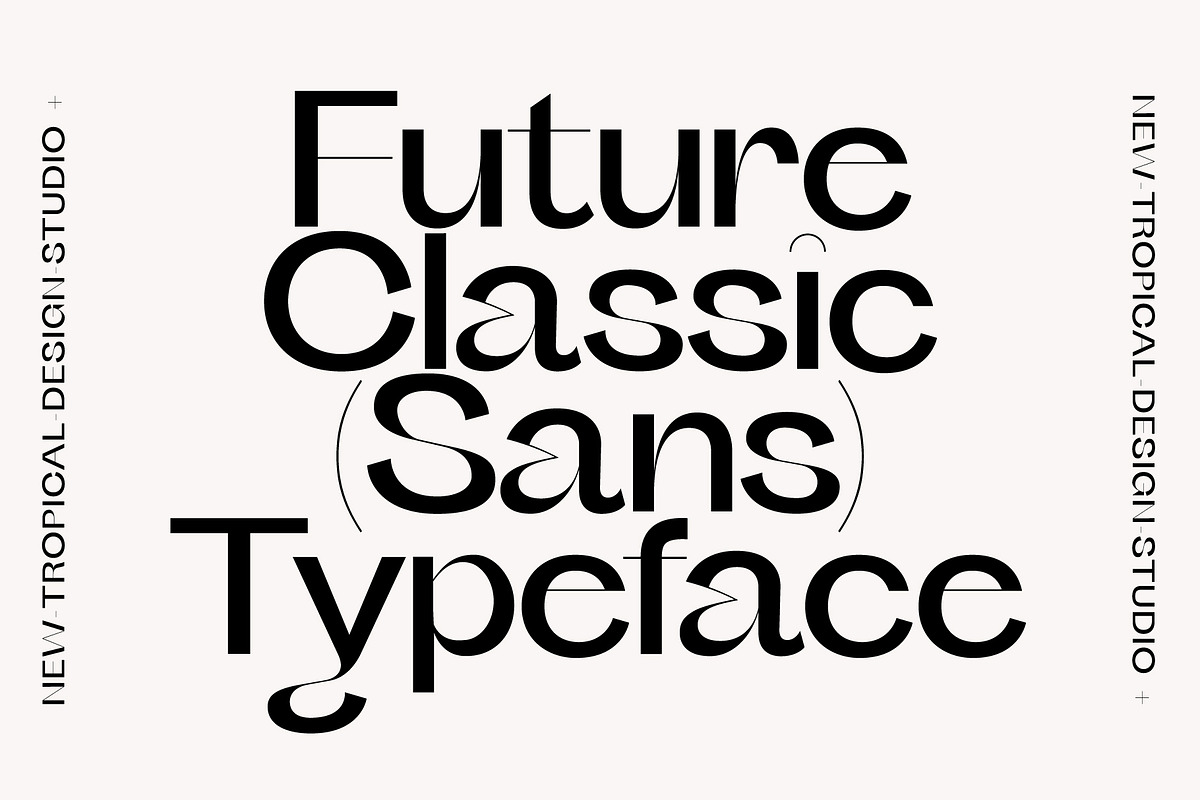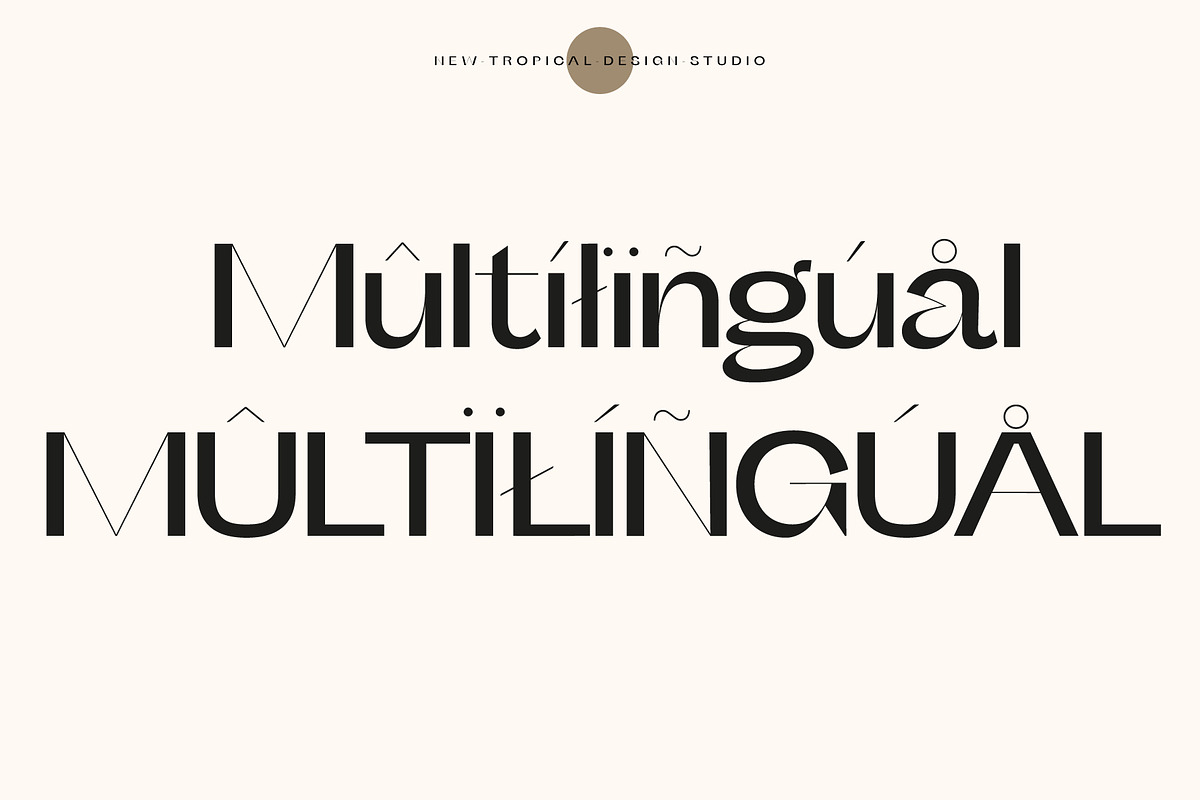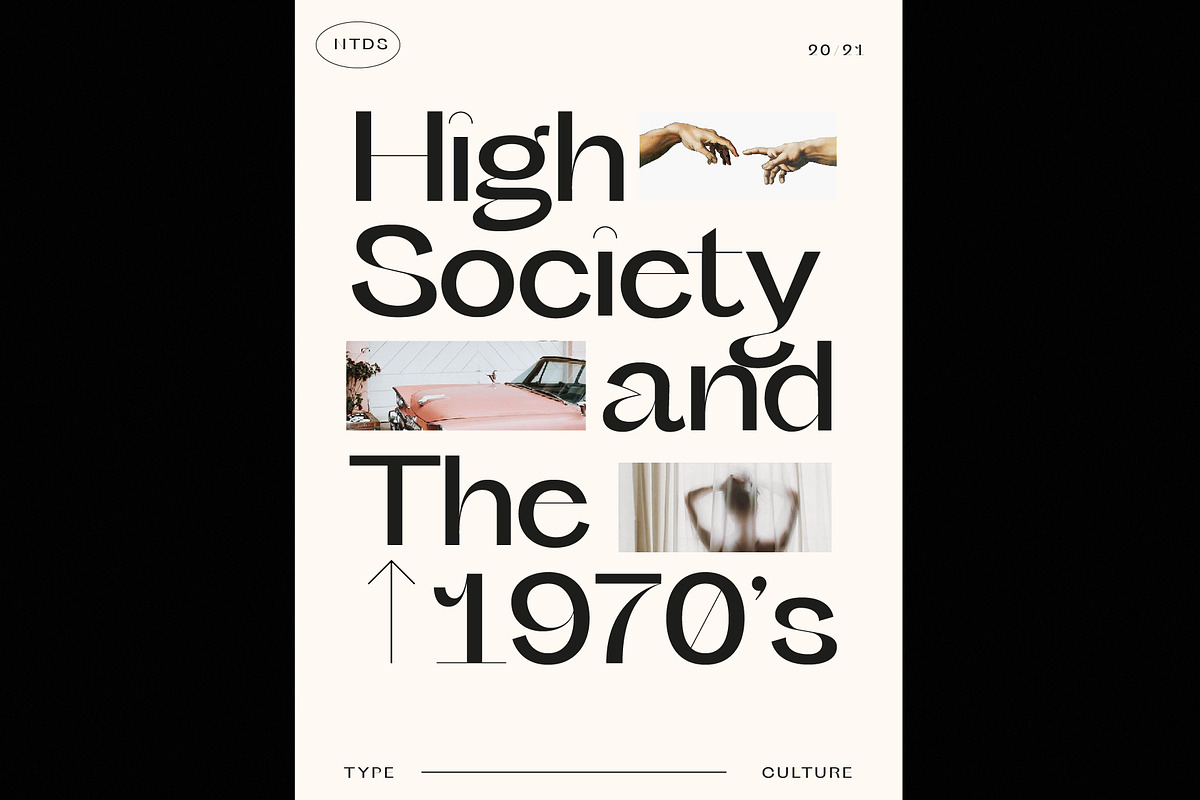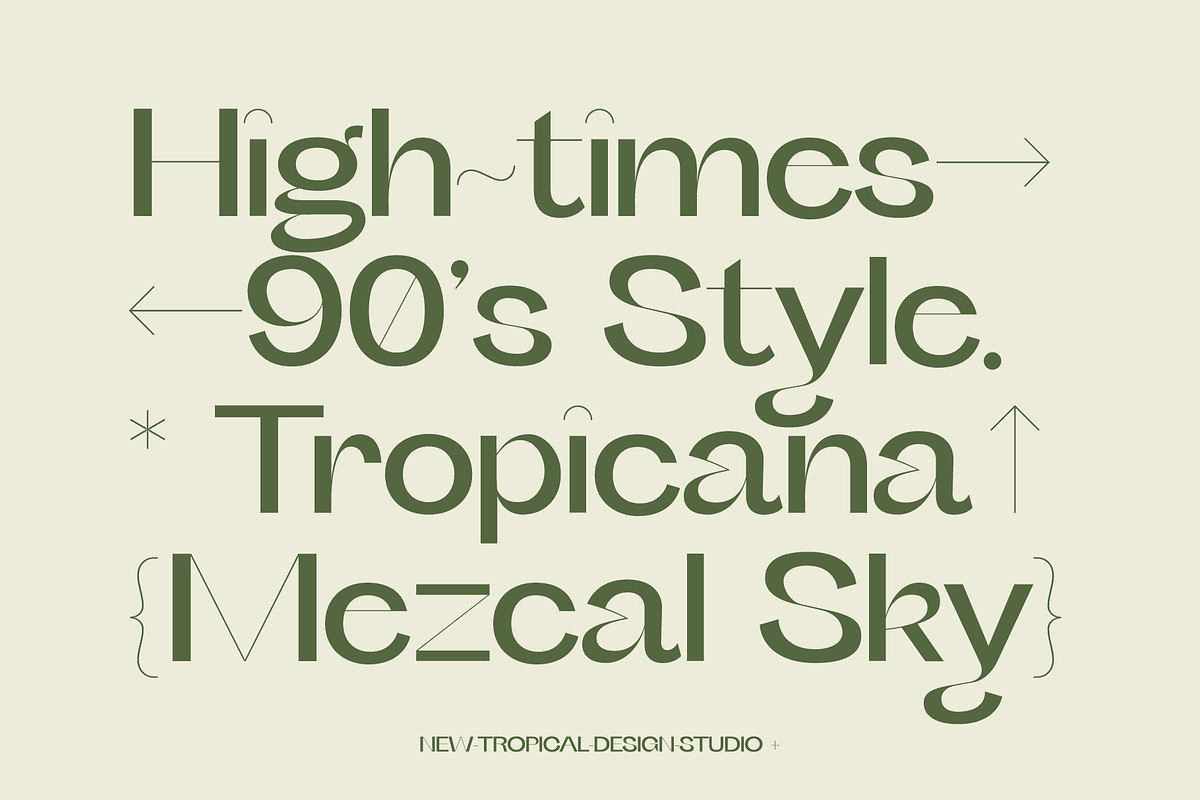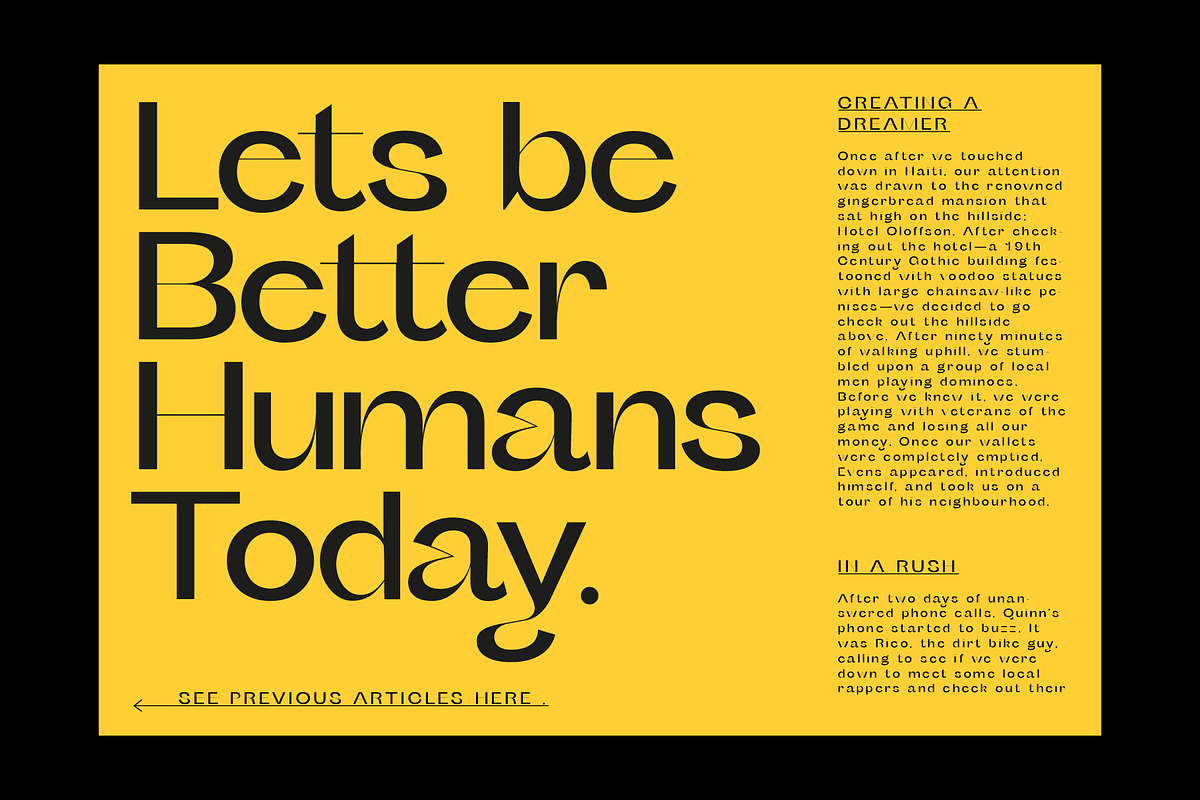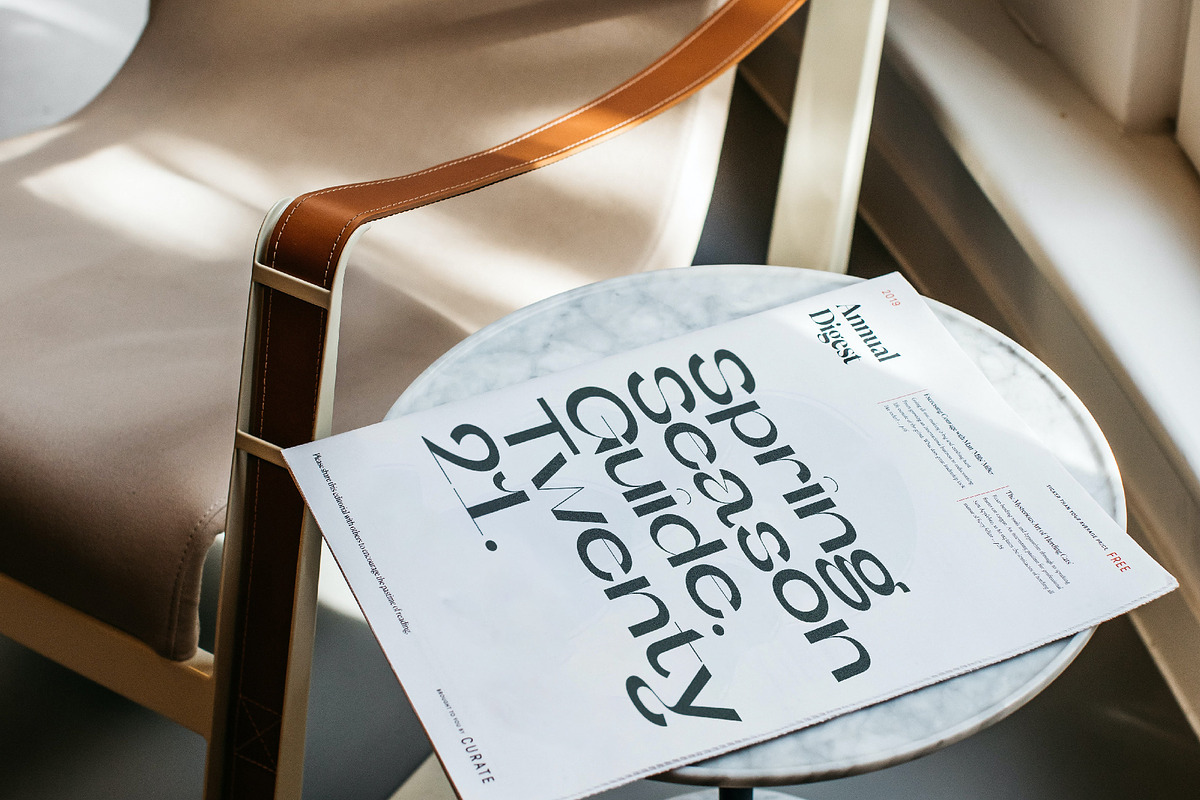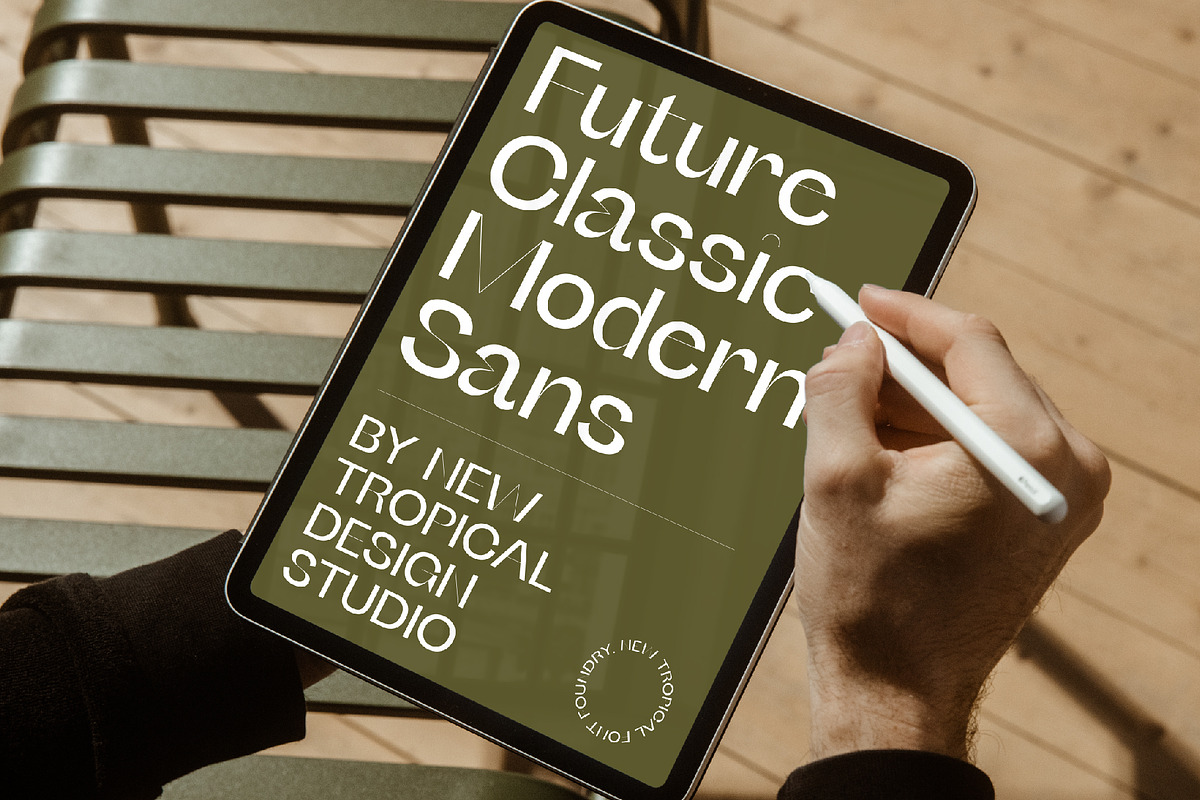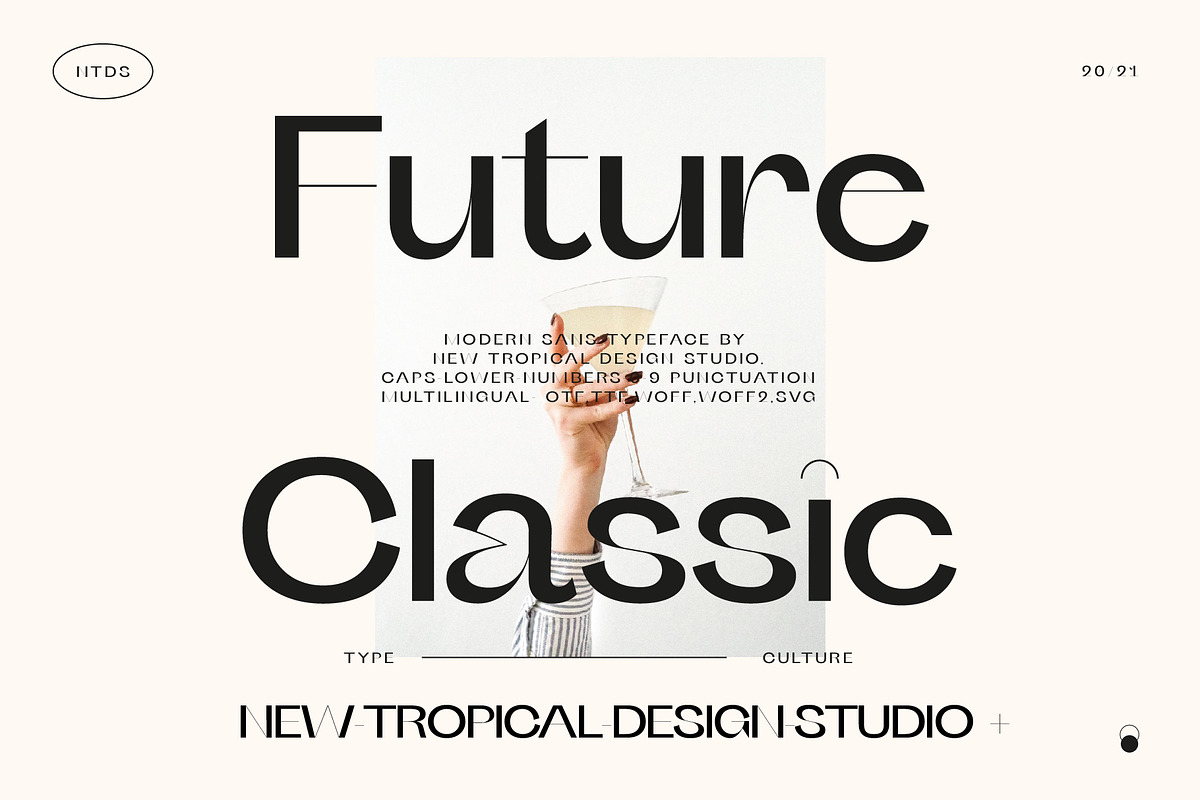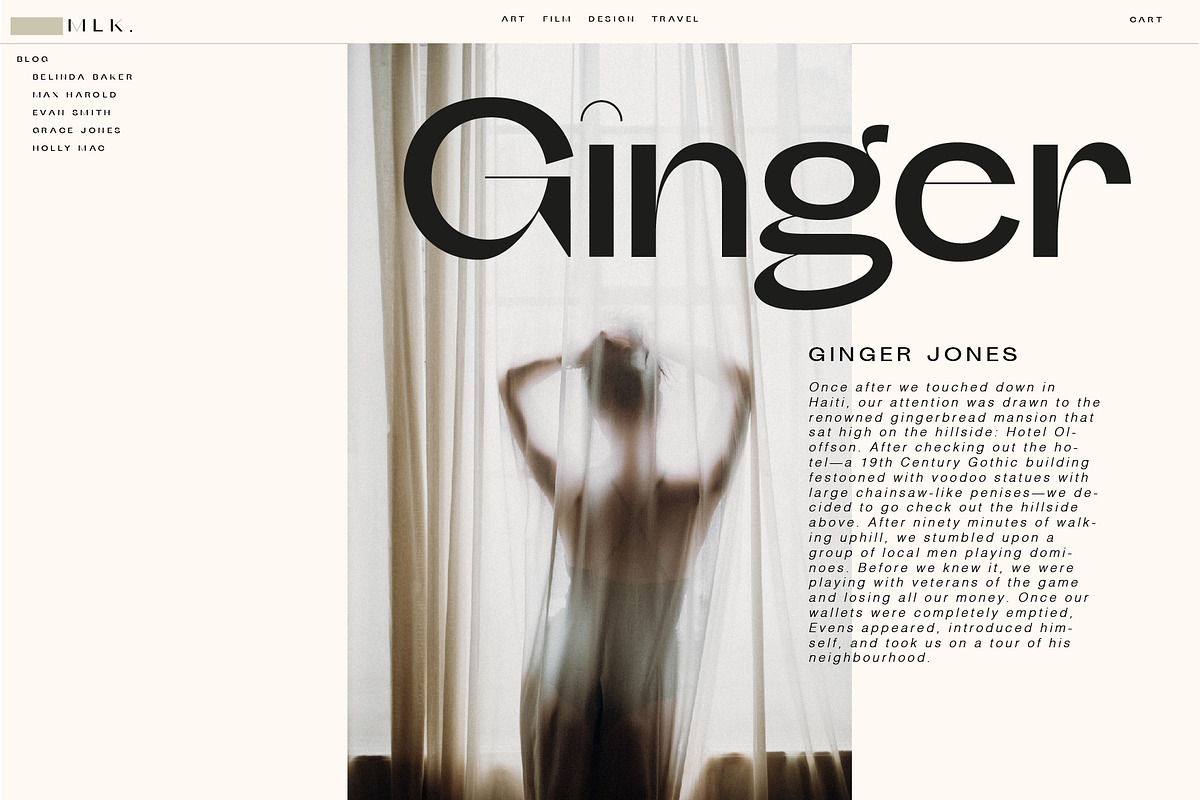
Future Classic Sans Typeface
Future Classic is a unique modern sans serif typeface. A high contrast take on a bold grotesque style. The Bold strokes juxtapose with the thin curves and light lines creating a memorable typeface. A classic sans with a futuristic flair.
- Full Upper/lower case, numbers + punctuation
- Multilingual support ( including polish ) see glyph slide for all characters